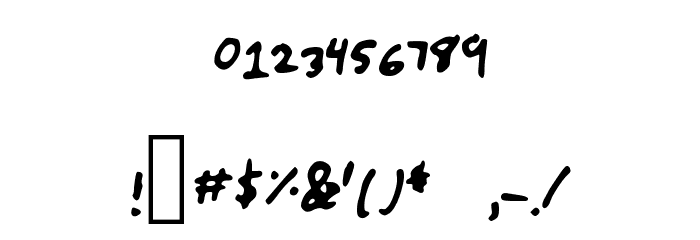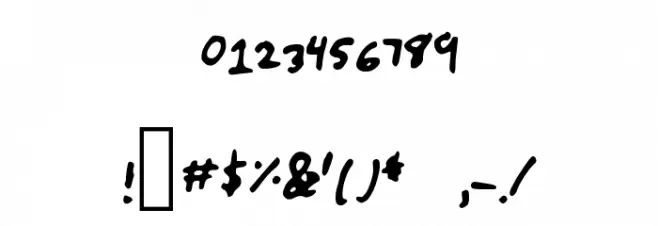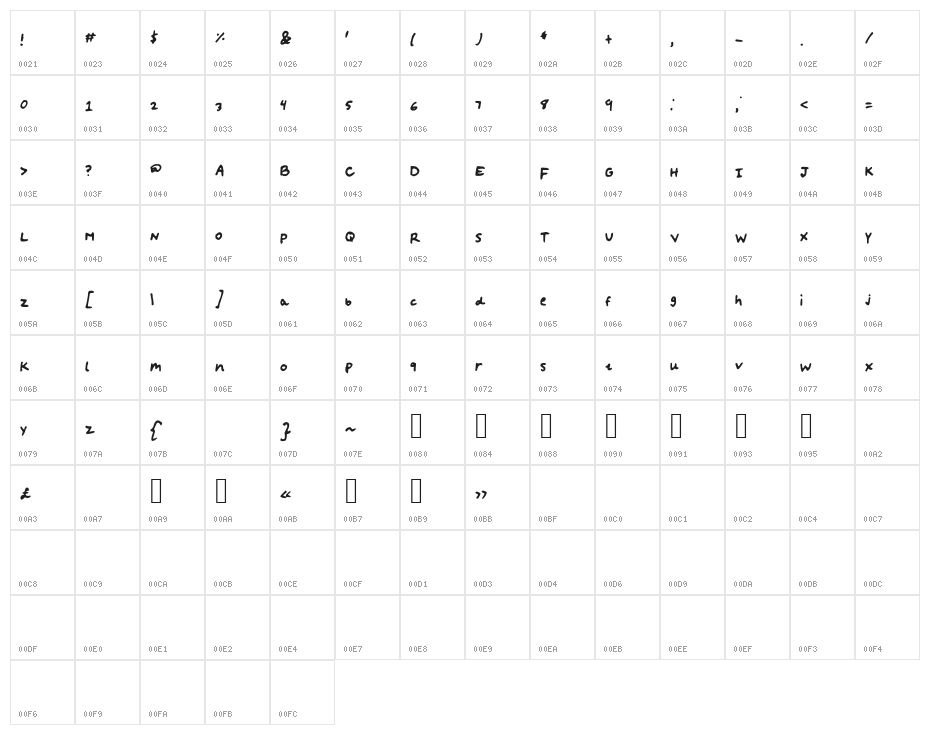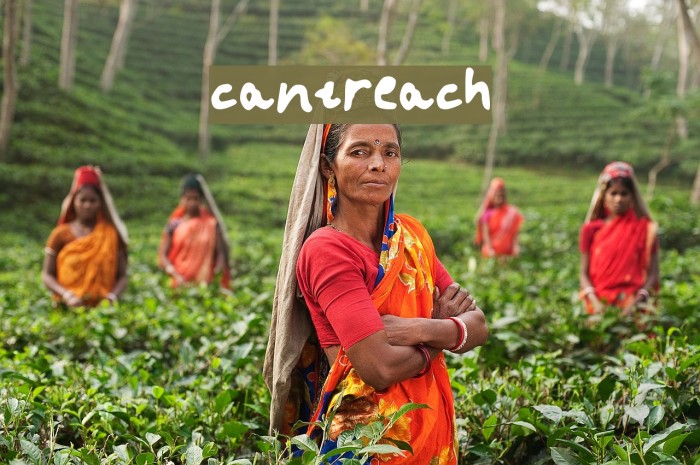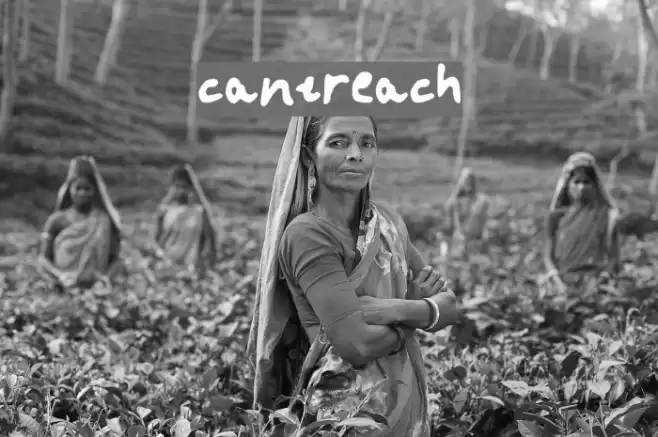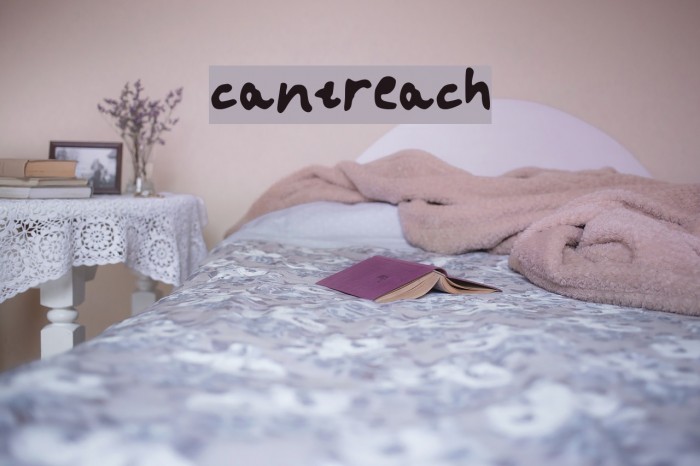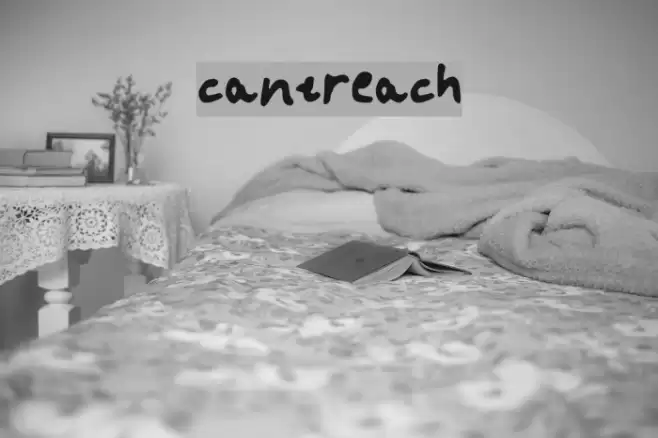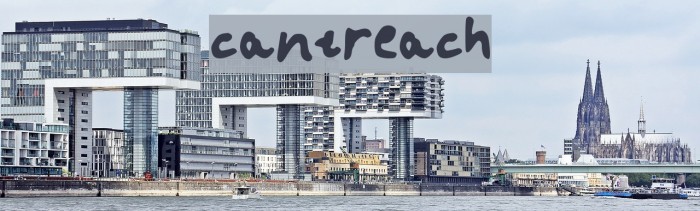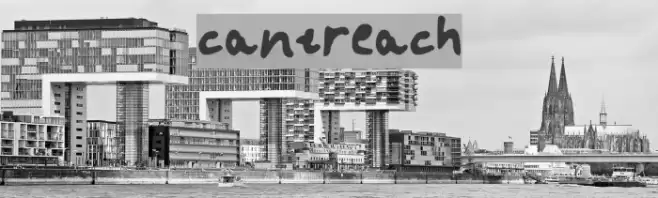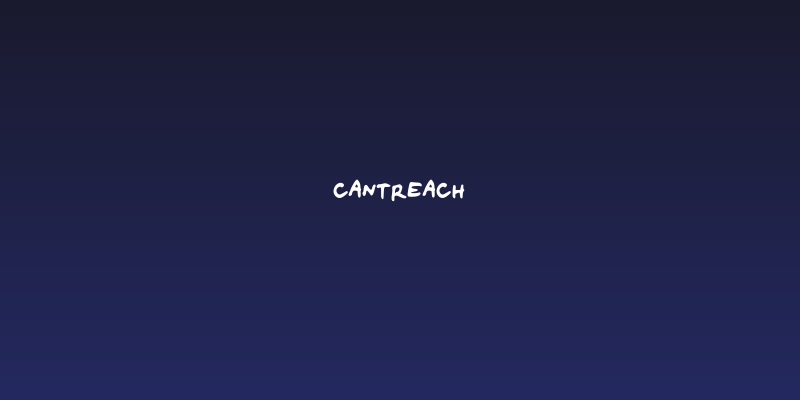
cantreach Font
cantreach Description
This playful and informal font features a handwritten style with a casual, friendly appearance. The characters are slightly irregular, adding a personal touch that mimics natural handwriting. The strokes are bold and consistent, providing good readability while maintaining a relaxed vibe. The font includes both uppercase and lowercase letters, numerals, and a variety of special characters, making it versatile for different uses. Its organic flow and slightly uneven baseline give it a dynamic and lively feel, perfect for projects that require a human touch.
| Use Case | Headlines, Informal text, Branding |
| Proposed Projects | Ideal for greeting cards, children's books, casual branding, and social media graphics. |